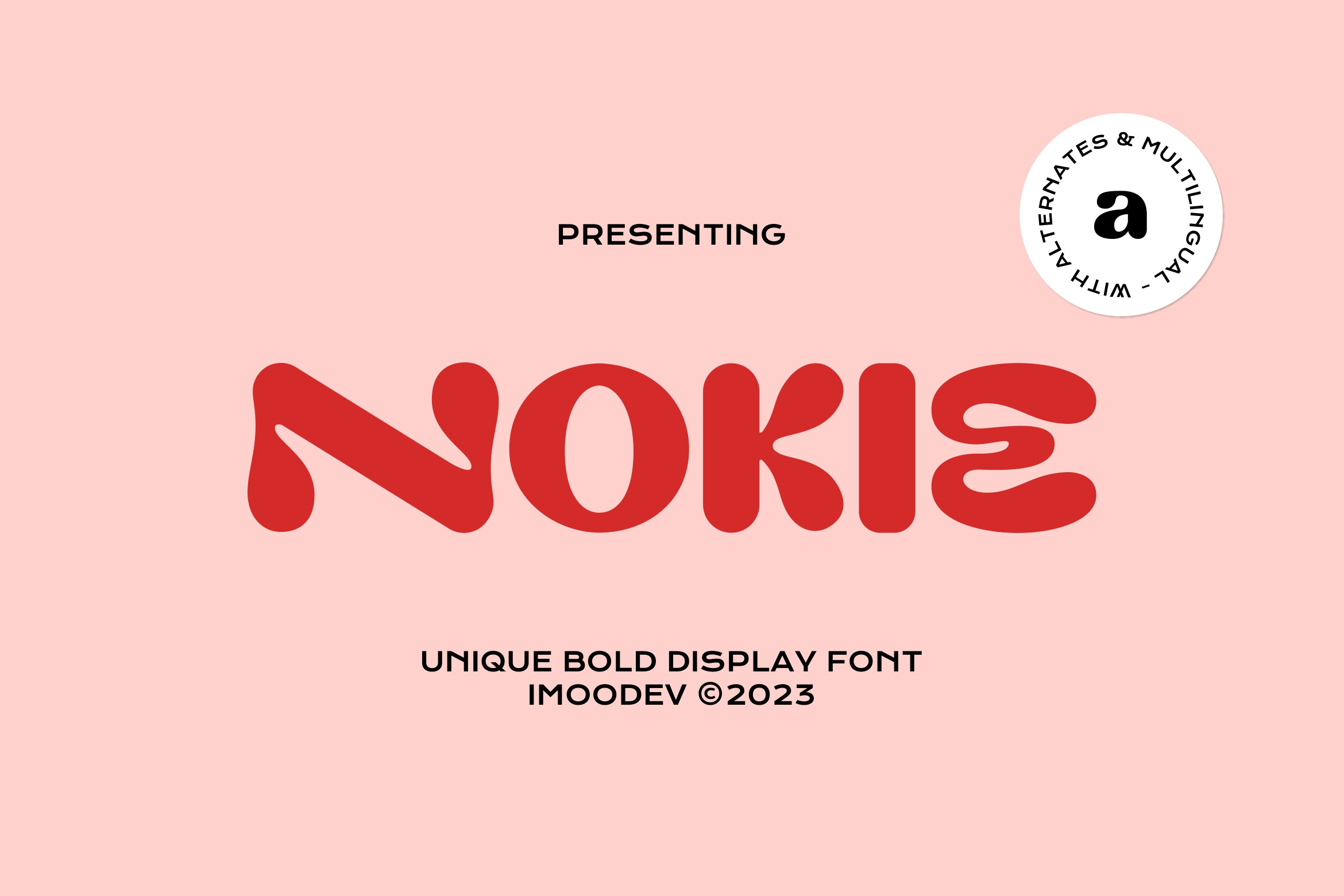
Nokie - Unique Bold Display Font
Nokie is a uniquely playful and bold display font, has it fluid, organic letterforms dance between solid, rounded strokes and imaginative distortions, providing a fresh, youthful aesthetic that stands out in branding, posters, and packaging designs.
The overall this font letters is very modern and could be particularly effective for eye-catching headings, brand logos, digital media, poster, branding, especially for corporate targeting a youthful audience, advertising, particularly in outdoor and large-scale formats like billboards or banners, social media campaigns, or any creative project.